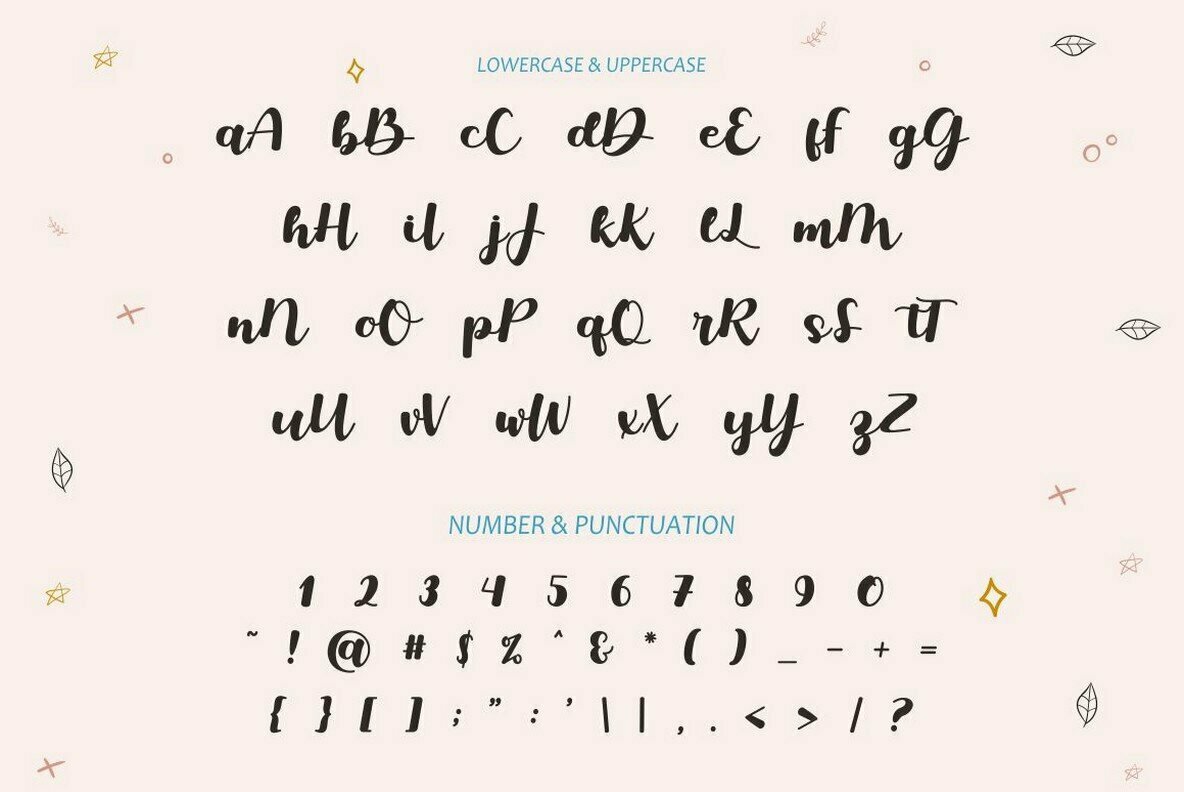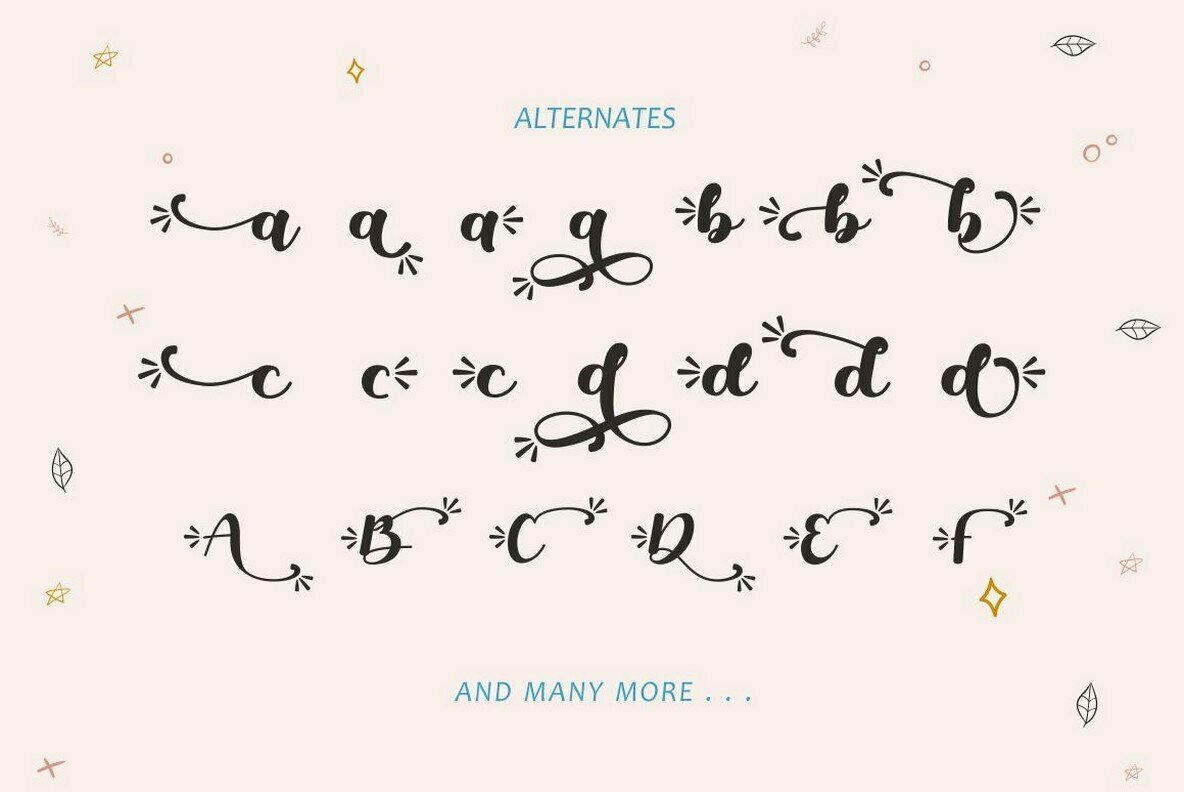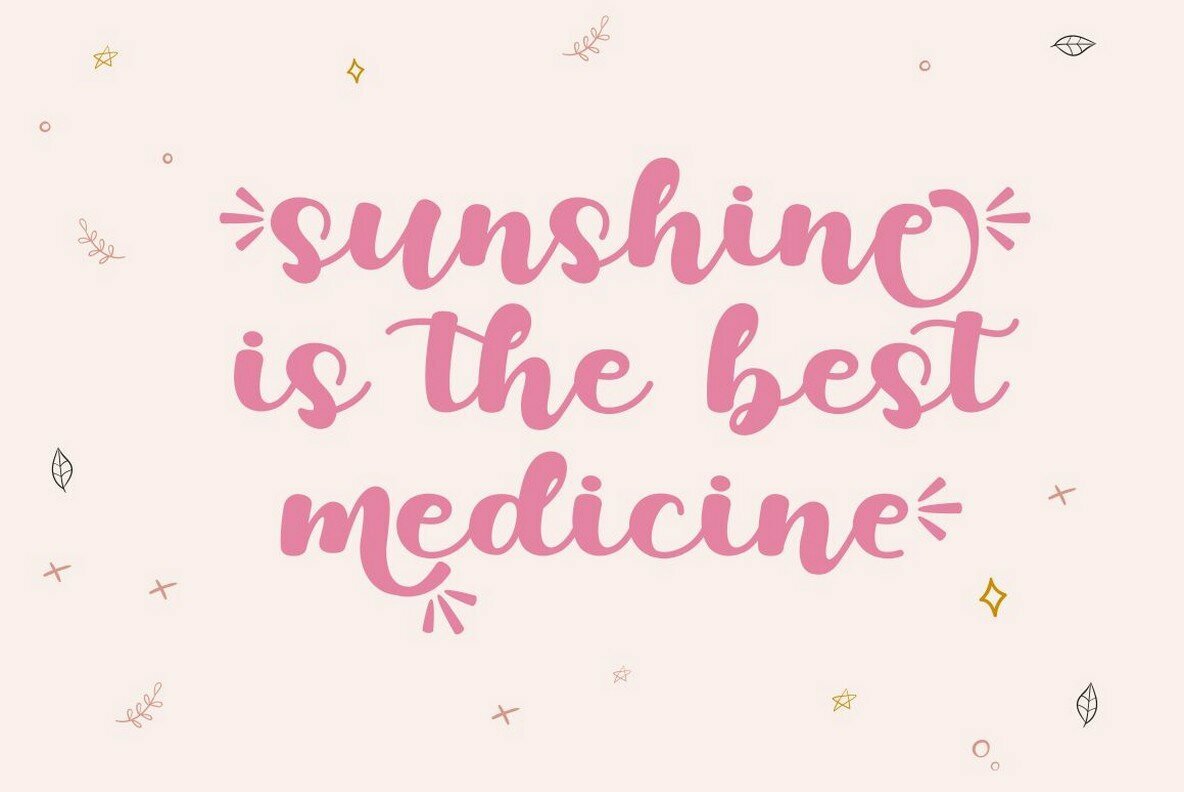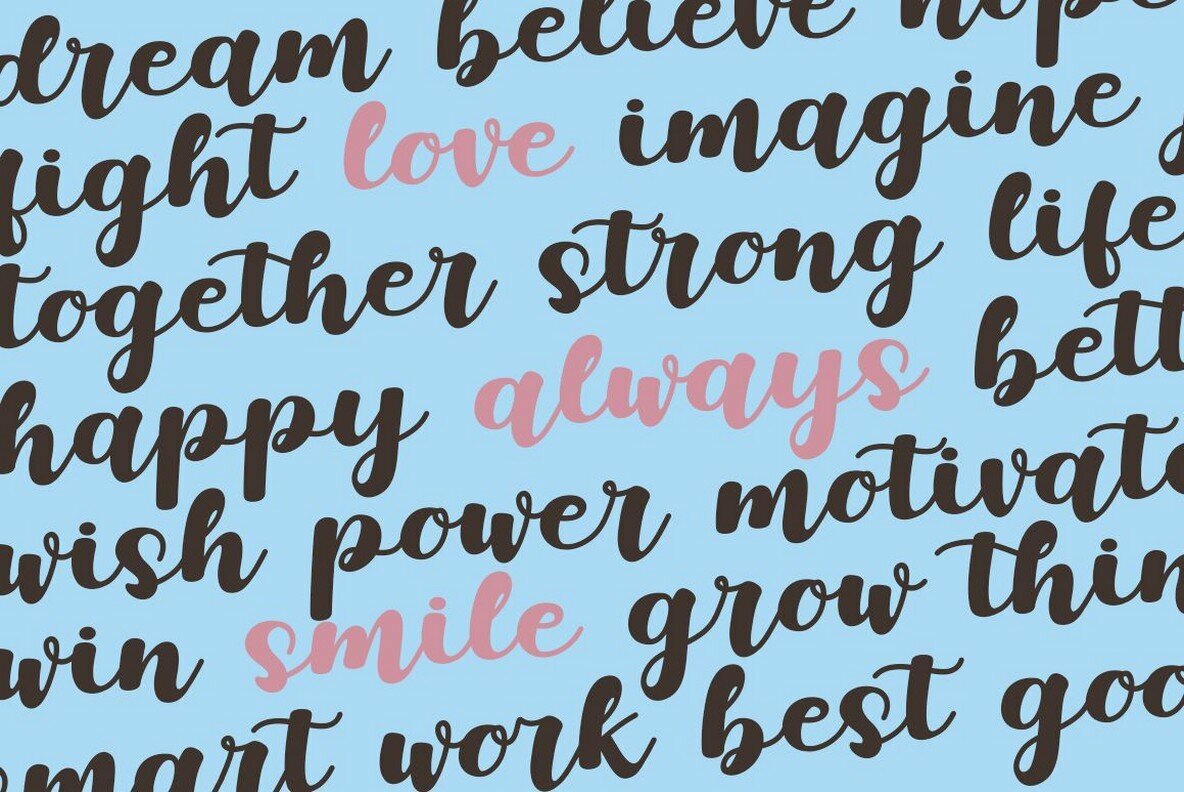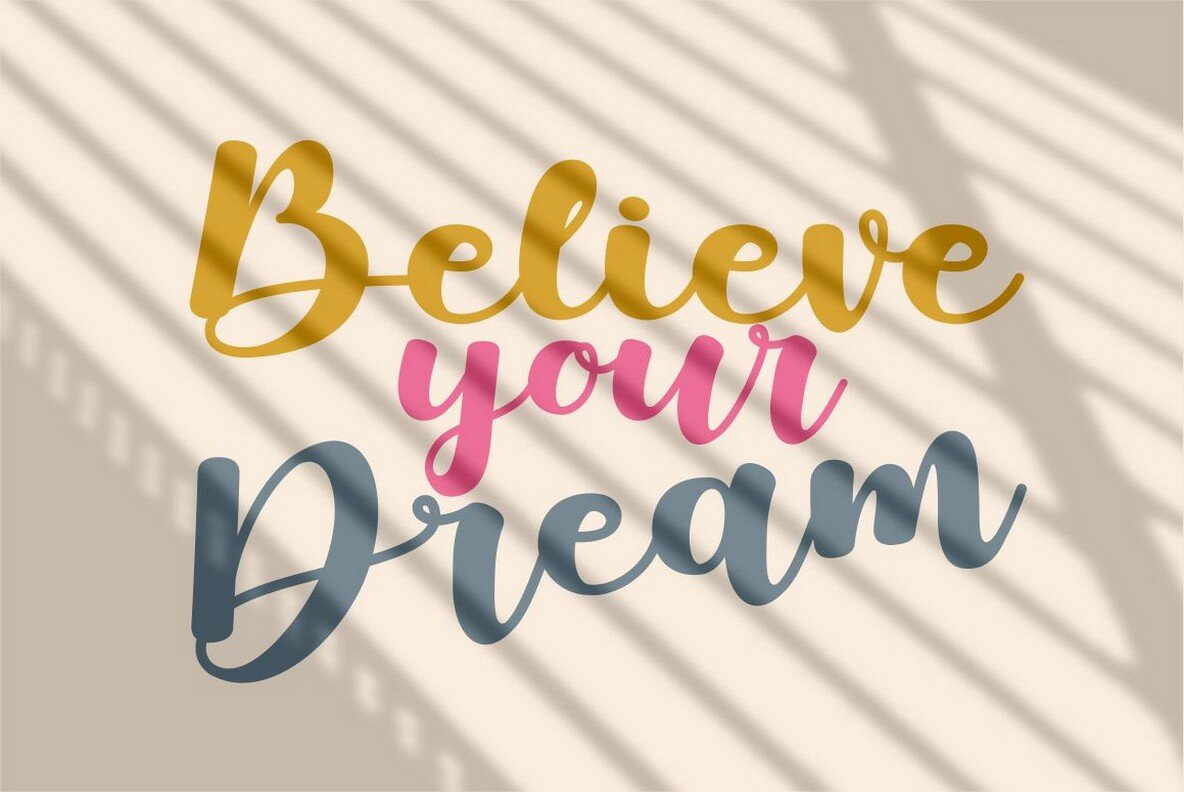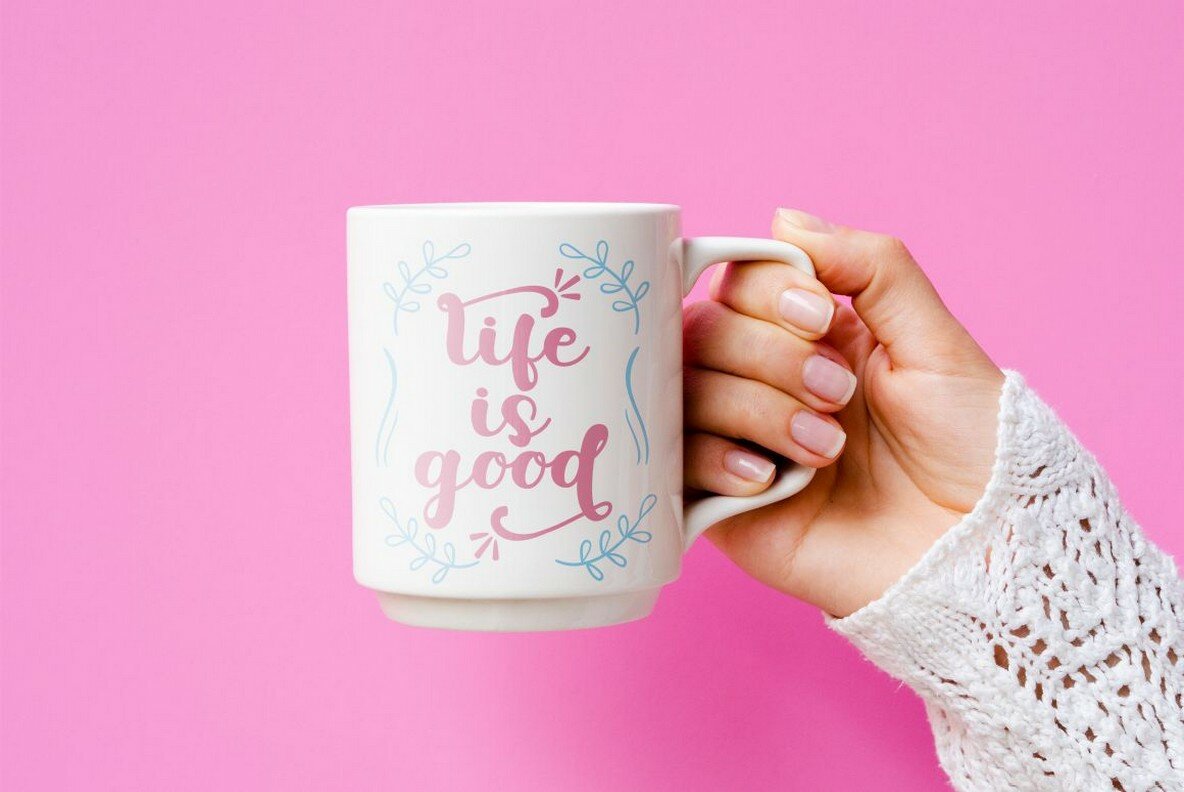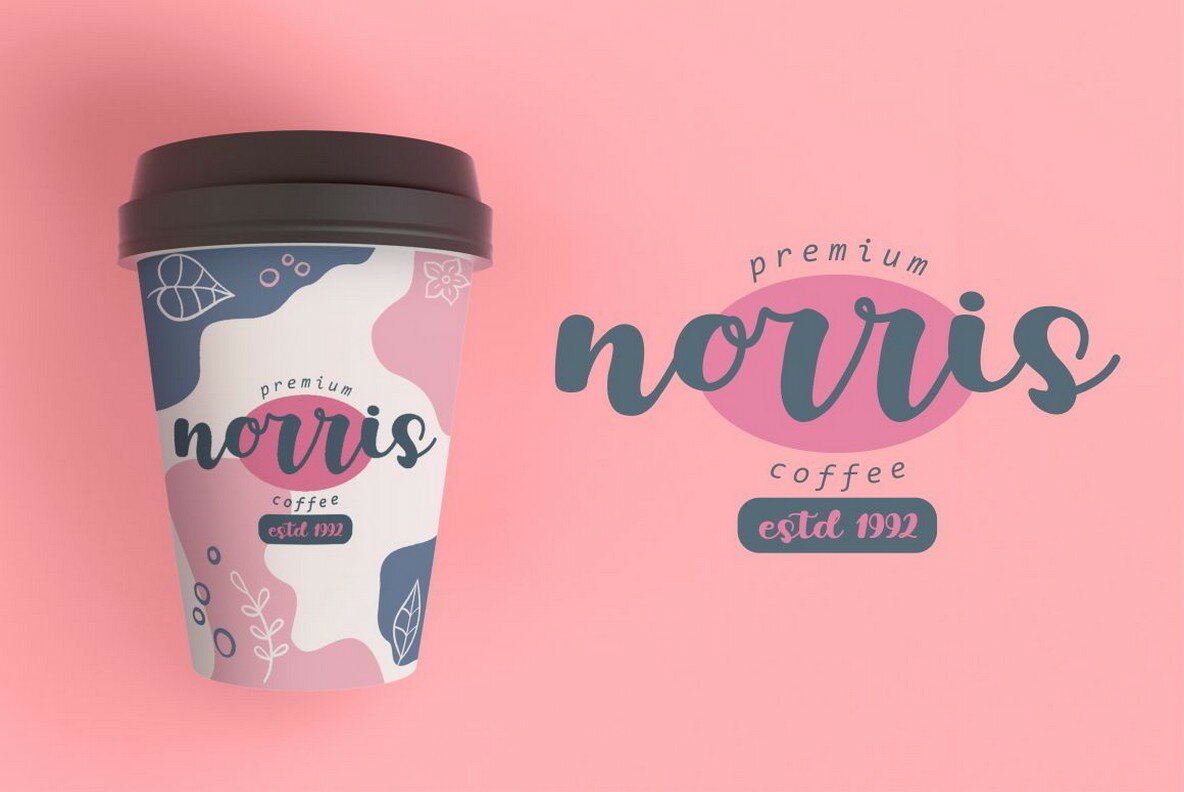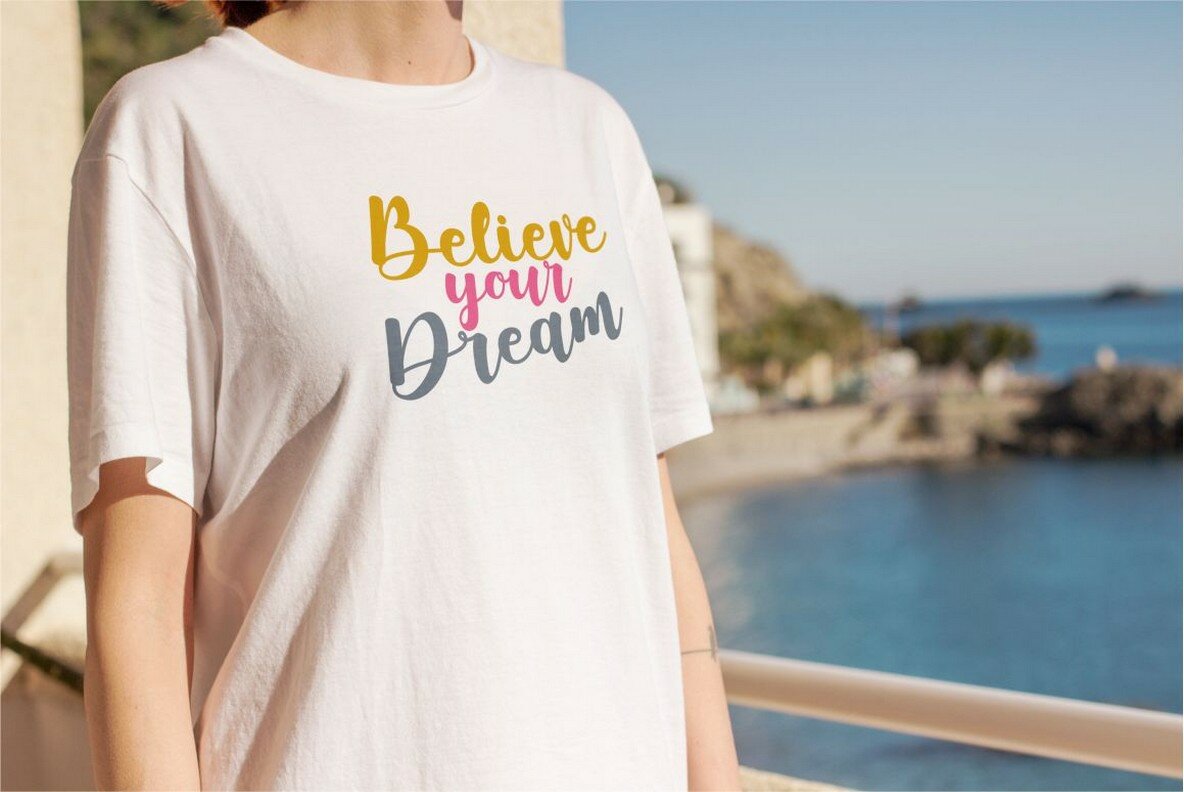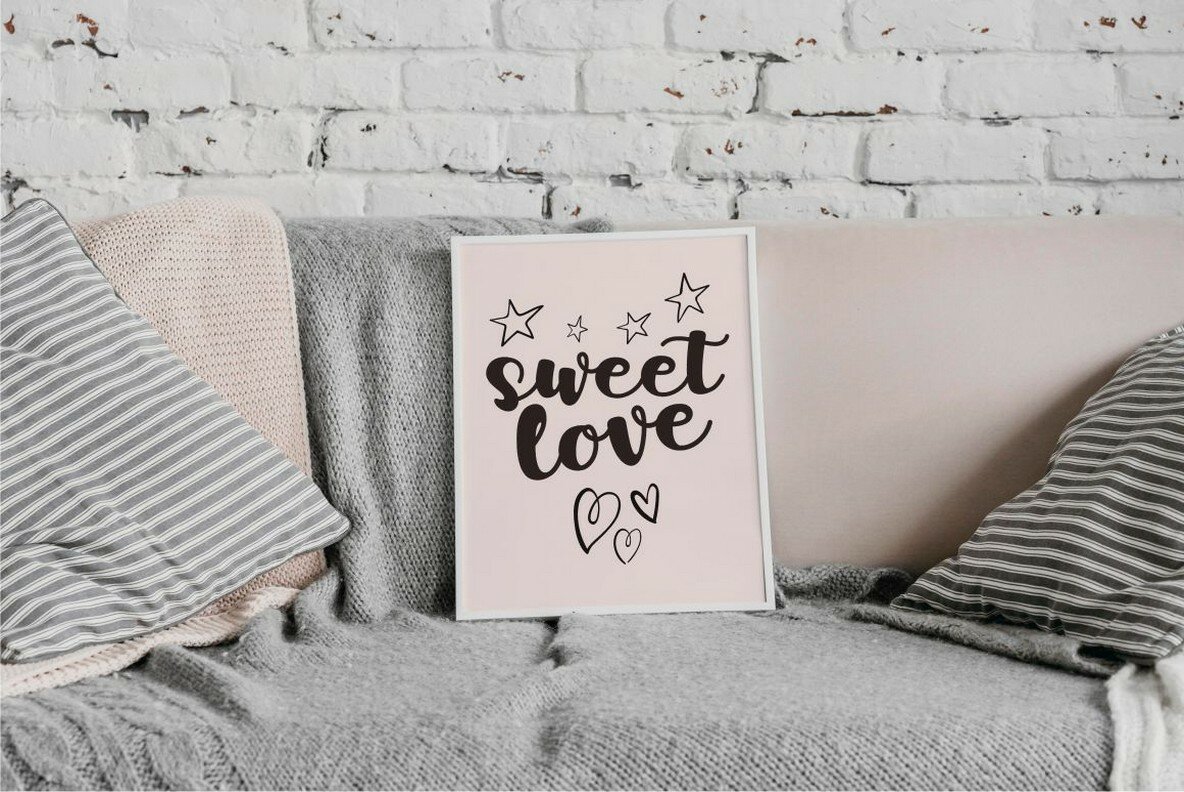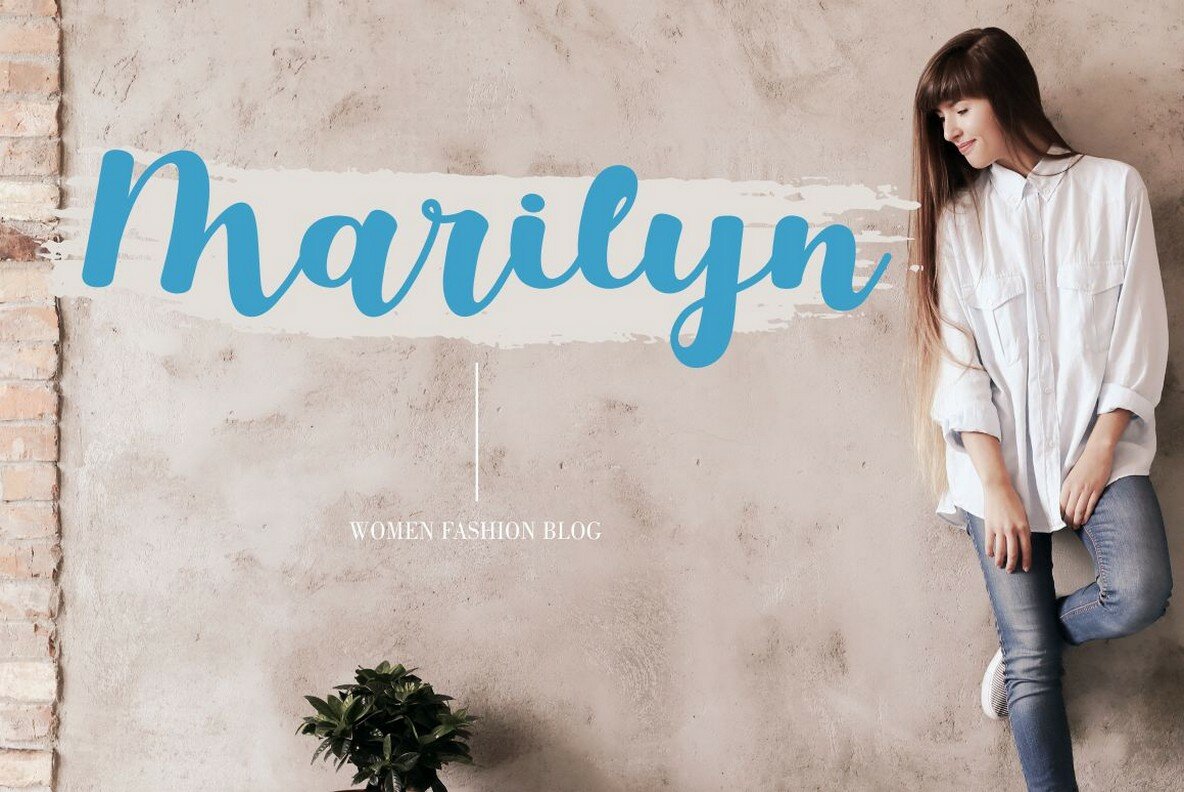
Surprise Spring Font
Surprise Spring
Surprise Spring emerges as a captivating script font, offering a touch of boldness complemented by individualistic flair in each character. This typeface invites creativity, thanks to its OpenType features and numerous alternates, which ensure your typography projects are nothing short of extraordinary. This font is ideal for a range of design applications, from crafting standout logotypes to creating stunning wedding invitations. Its versatility extends to quote and lettering compositions, fashion projects, book covers, and magazine typography. It's equally at home on cards, packaging, posters, and branding elements.Surprise Spring: Bold Script with Unique Style